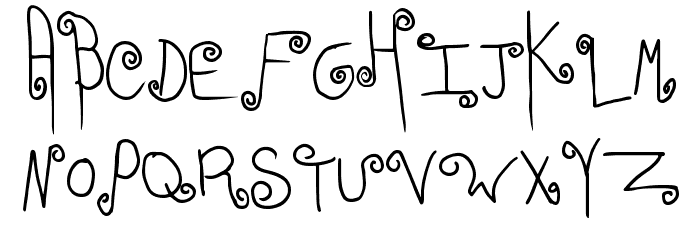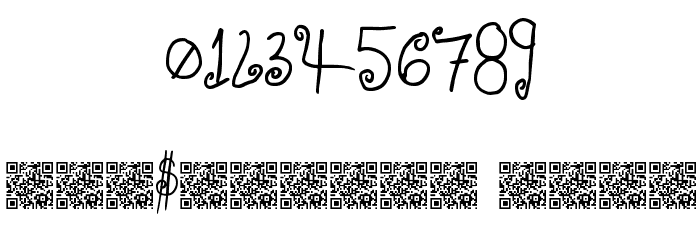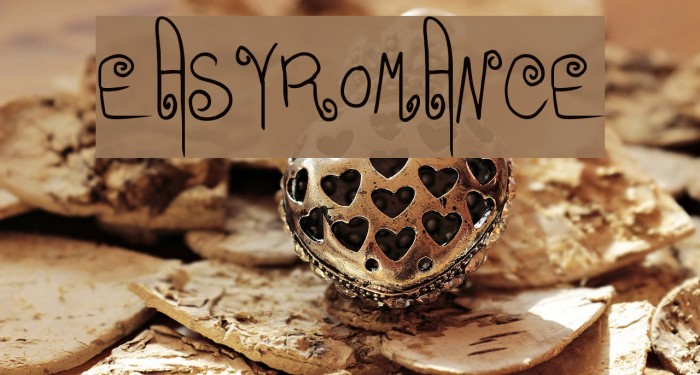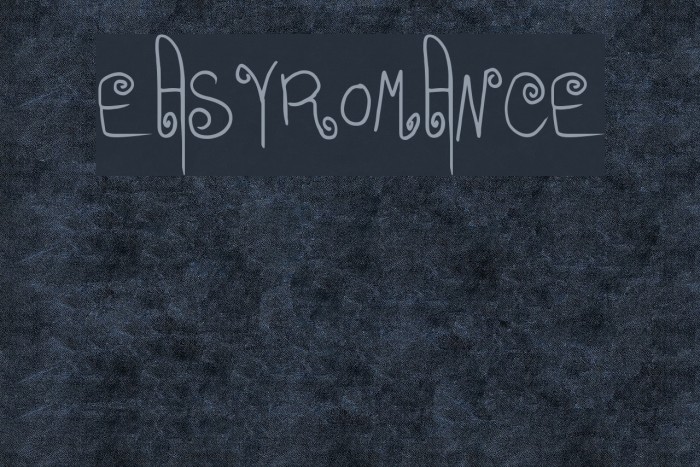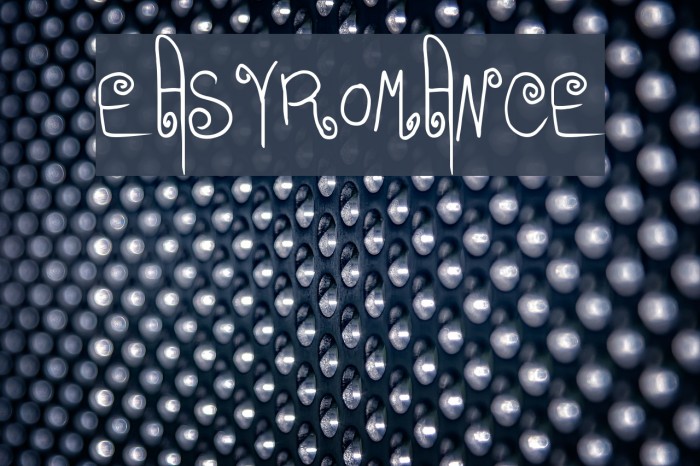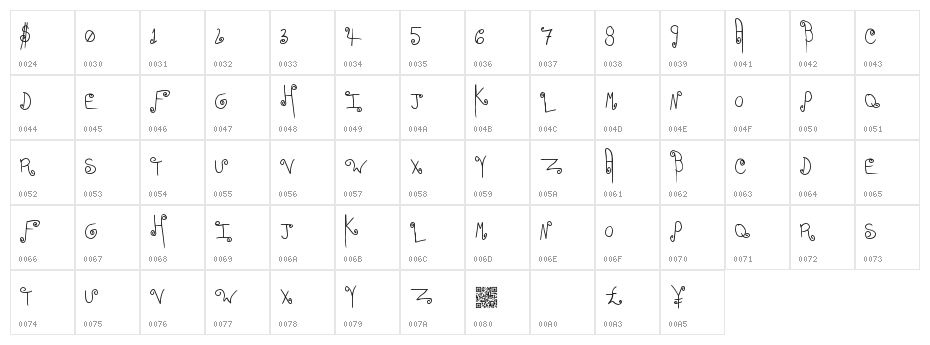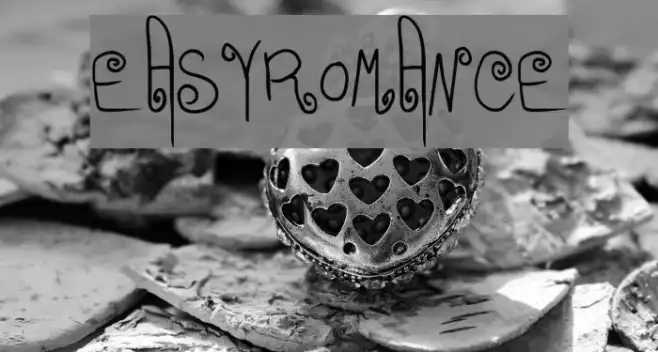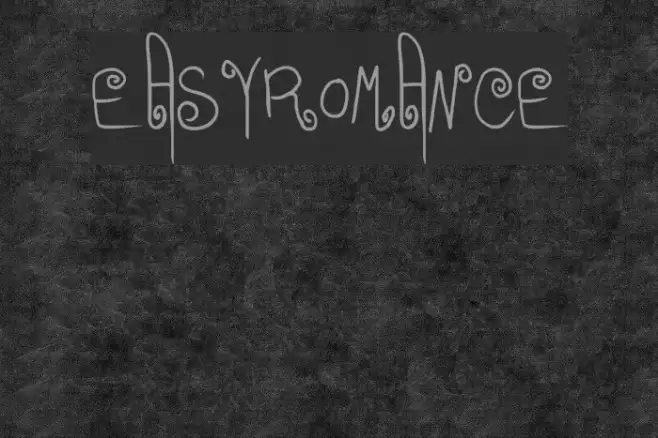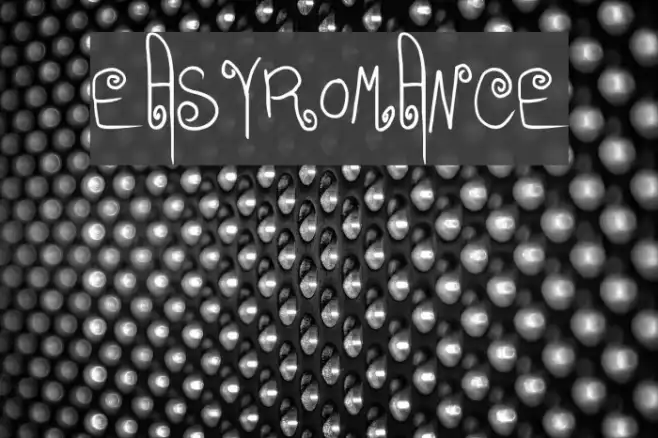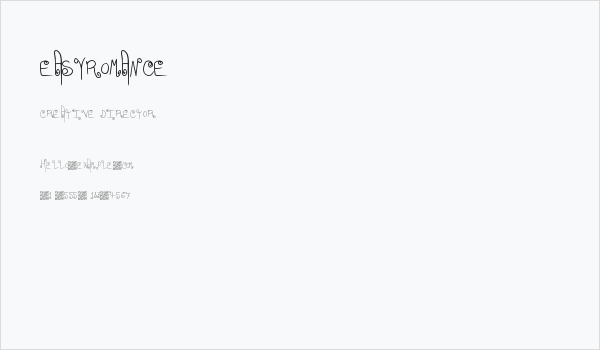
EasyRomance Font
This whimsical and playful font features a unique design with curly, spiral-like embellishments on each character, giving it a lively and artistic flair. The letters are tall and slender, with varying stroke thickness that adds to its quirky charm. The font maintains a consistent style across uppercase, lowercase, and numeral characters, each adorned with distinctive swirls that make it stand out. Its decorative nature makes it ideal for creative projects where a touch of fun and personality is desired.
A whimsical, curly font with playful spiral embellishments.
- Proposed Projects: Ideal for greeting cards, children's book covers, playful branding, and artistic posters.
- Use Case: Logos, Headlines, Artistic projects